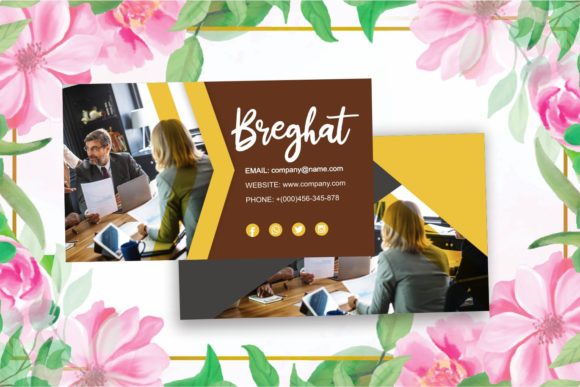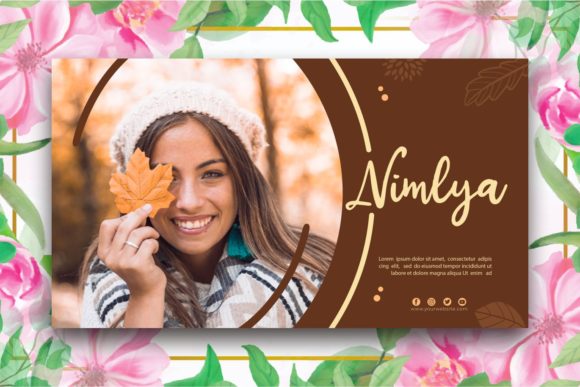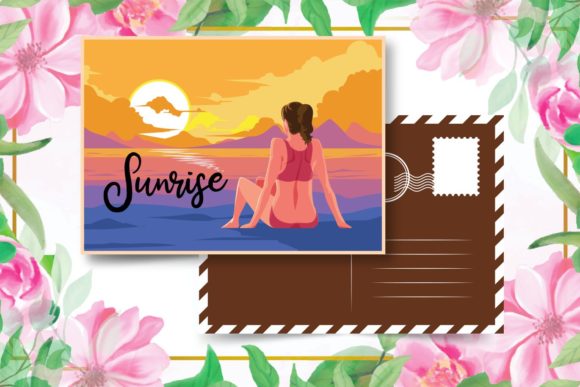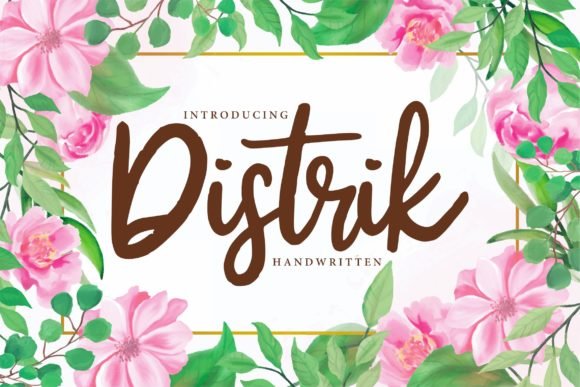
Introduction to Distrik Font
Distrik is a playful and unique handwritten font with a cool vibe.
Get inspired by its dazzling and romantic look .
Key Features of Distrik Font
Why Choose Distrik Font?